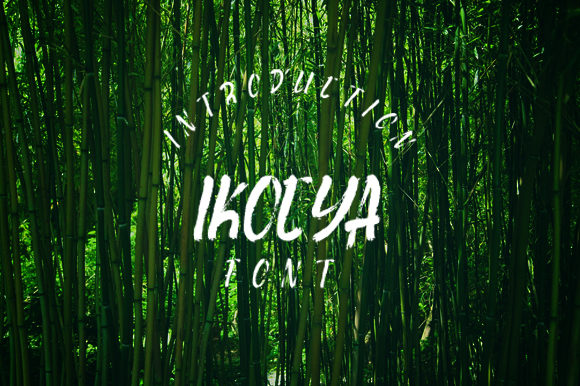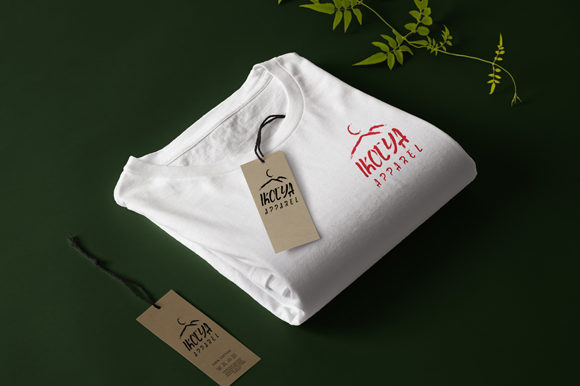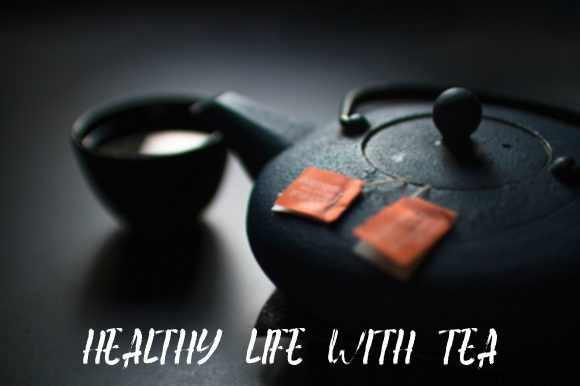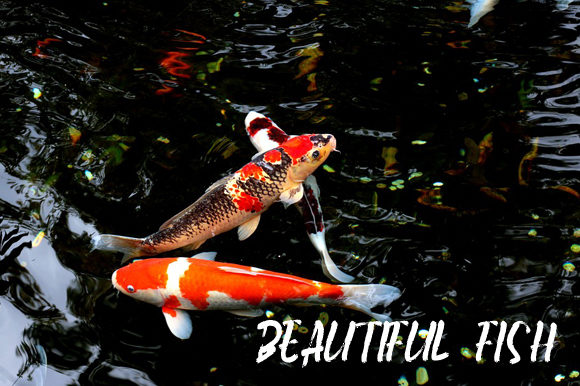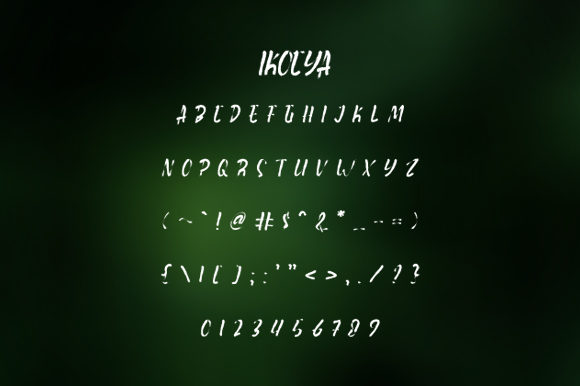
HomeScript FontsIkocya Font Script Fonts Ikocya Font FacebookXPinterestWhatsApp Ikocya Font Poster 2 Ikocya Font Poster 3 Ikocya Font Poster 4 Ikocya Font Poster 5 About Ikocya Font Ikocya is a powerful and bold handwritten font with an iconic look. Get inspired by its timeless style. DOWNLOAD ON CREATIVE FABRICAThis font is sold and delivered by Creative Fabrica. Font Canyon may earn a commission if you buy through this link. People also explored Doriath Moderation Font Ament Font Sunfloweria Freebird Font Gigranche Font Cantaloupe Griffin Simeon Font Thrylos Child Font 314 0 TagsIkocya Font Previous articleKalamaya FontNext articleCimol Font LEAVE A REPLY Cancel reply Comment: Please enter your comment! Name:* Please enter your name here Email:* You have entered an incorrect email address! Please enter your email address here Website: Save my name, email, and website in this browser for the next time I comment. Personal Use Free Arc Personal Use Free Read more about this font Hubbies Personal Use Free Read more about this font Frozdotre Personal Use Free Read more about this font Carved Wood Personal Use Free Read more about this font BLOG Fonts That Capture the Spirit of New York City New York City is more than just a place—it’s an experience, a rhythm, a visual language... Modern Sans-Serif Fonts That Brands Love in 2025 Elegant Wedding Invitation Fonts – Handwritten & Script Fonts Free Fonts Risk: Why Free Fonts Can Be Dangerous for Designers